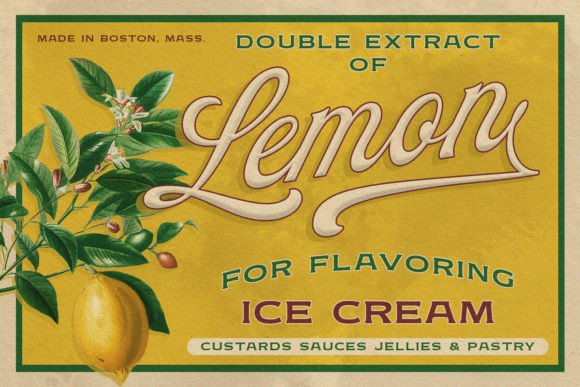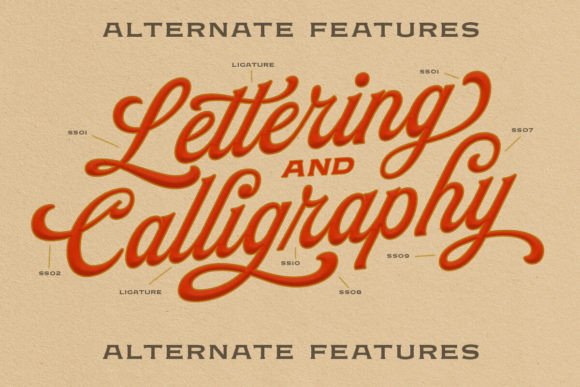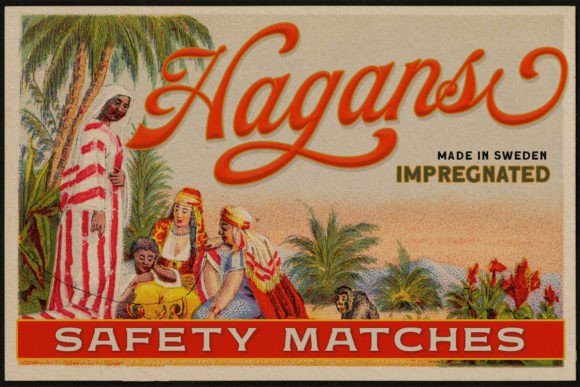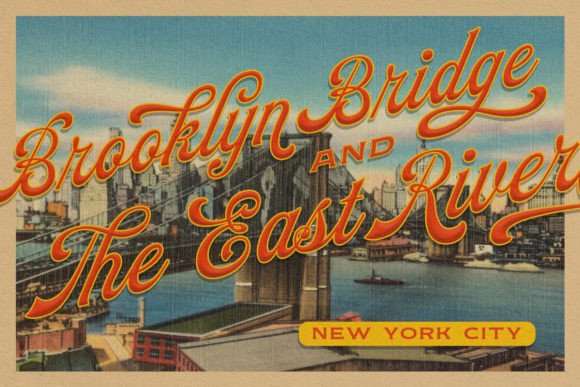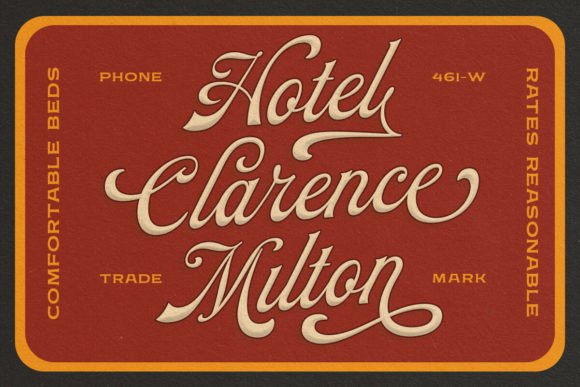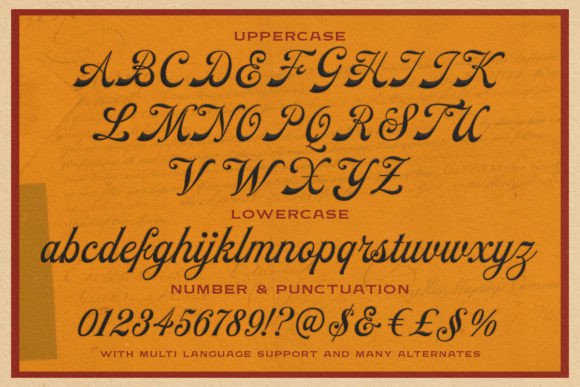
Introducing Elite Citadel Font: Timeless Elegance for Modern Designs
Are you searching for a font that embodies the sophistication and luxury of a bygone era? Look no further than Elite Citadel, a vintage script font that is sure to elevate your designs to new heights. With its elegant strokes and classic charm, this versatile typeface is perfect for a wide range of applications, from formal events to stylish branding.
The Perfect Blend of Style and Versatility
Elite Citadel is a masterfully crafted font that excels in various design contexts, including logos, headlines, and signage. Its unique blend of traditional and modern elements makes it an excellent choice for designers and crafters seeking to add a touch of refinement to their work. Whether you’re creating invitations, labels, magazines, books, greeting and wedding cards, packaging, fashion, makeup, stationery, novels, or advertising materials, Elite Citadel is the perfect companion.
Unleash Your Creativity with Elite Citadel
One of the standout features of Elite Citadel is its incredible versatility. This font can be used in a multitude of ways, from:
- Logos and branding: Create a lasting impression with a custom logo that exudes elegance and sophistication.
- Invitations and wedding cards: Set the tone for a luxurious and memorable event with beautifully designed invitations.
- Packaging and labels: Add a touch of high-end quality to your products with eye-catching packaging and labels.
- Fashion and beauty: Elevate your fashion or beauty brand with a font that embodies style and glamour.
- Advertising and marketing: Grab attention and make a statement with bold, eye-catching headlines.
Why Choose Elite Citadel Font?
So, what sets Elite Citadel apart from other fonts? Here are just a few reasons why designers and crafters love this vintage script font:
- Timeless elegance: Elite Citadel’s classic design ensures that your work will remain stylish and relevant for years to come.
- High legibility: The font’s clear and concise strokes make it easy to read, even at smaller sizes.
- Flexibility: Use Elite Citadel for both digital and print applications, from social media graphics to business cards.
- Unique character: The font’s distinctive style adds a touch of personality to any design.
Tips for Using Elite Citadel Font
To get the most out of Elite Citadel, here are a few design tips to keep in mind:
- Pair with contrasting fonts: Combine Elite Citadel with a clean, modern font to create visual interest.
- Experiment with colors: Try pairing the font with rich, bold colors to add depth and luxury.
- Pay attention to spacing: Ensure that your text is easy to read by adjusting the spacing and kerning.
Elite Citadel Font is a versatile and elegant typeface that is sure to become a staple in any designer’s toolkit. With its timeless charm and flexibility, this vintage script font is perfect for a wide range of applications, from formal events to stylish branding. Whether you’re a seasoned designer or a crafty DIY enthusiast, Elite Citadel is the perfect choice for anyone seeking to add a touch of sophistication to their work.